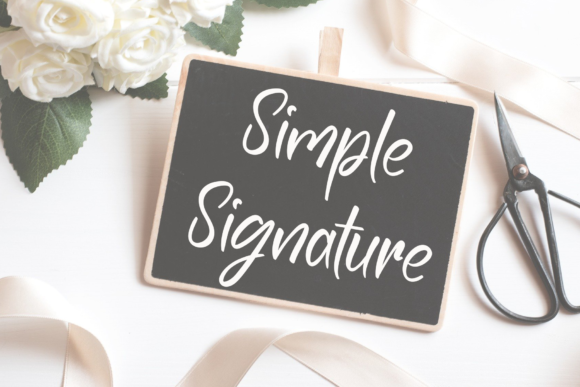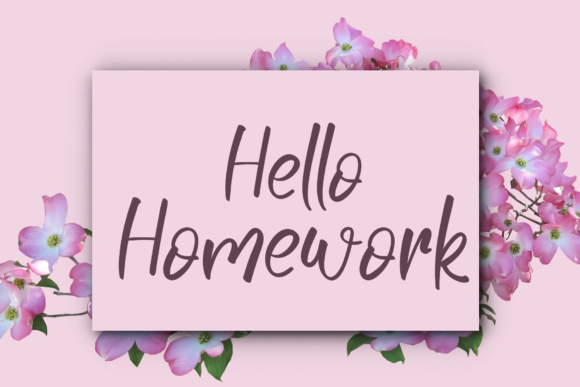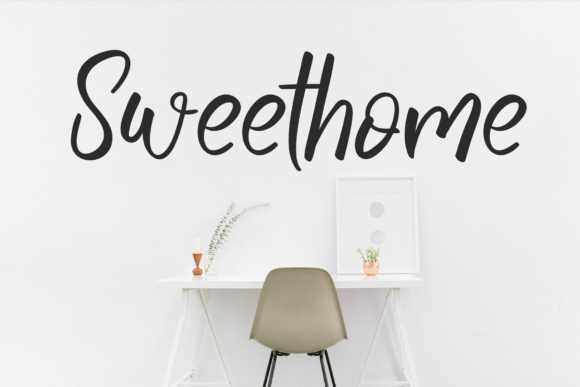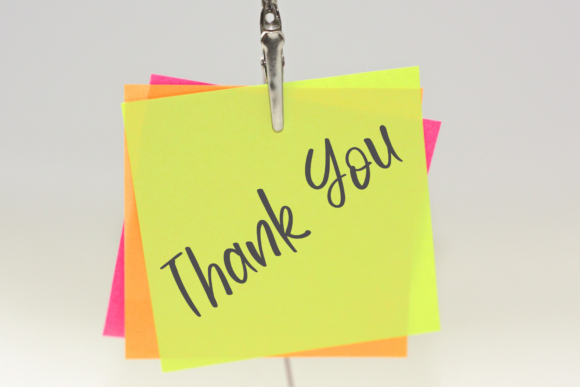
Introduction to Cactus Flowers Font
Cactus Flowers is a slim and modern handwritten font.
It is perfectly suitable for a wide range of projects such as wedding invitations, books, birthday cards, business cards, marketing materials, social media posts, and more .
Key Features of Cactus Flowers Font
Why Choose Cactus Flowers Font?
Cactus Flowers Font offers exceptional quality and versatility, making it a valuable addition to your design toolkit. Whether you’re creating for personal projects or commercial use, Cactus Flowers Font delivers professional results.